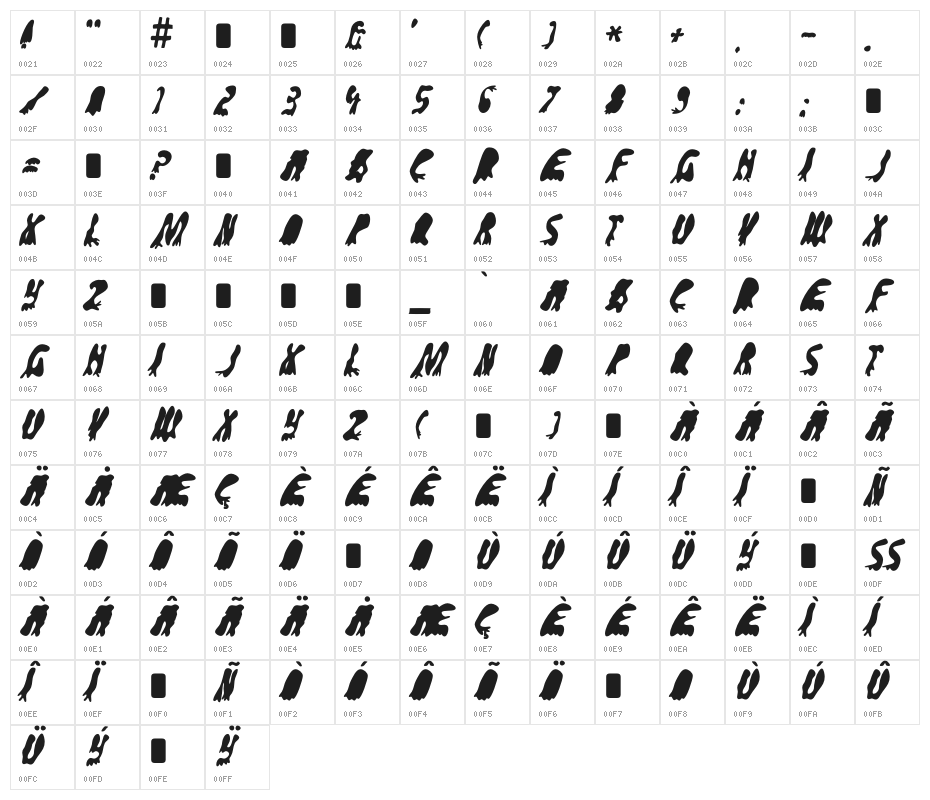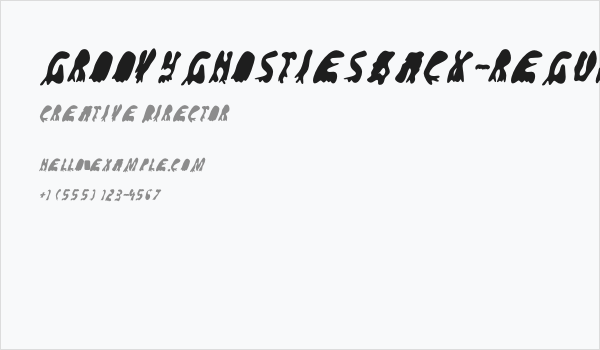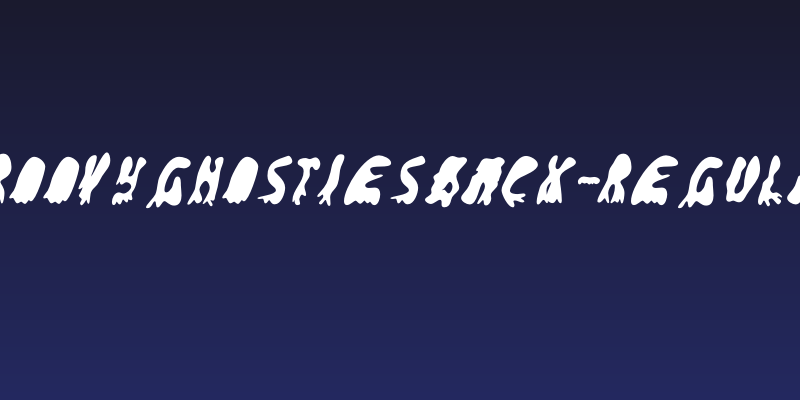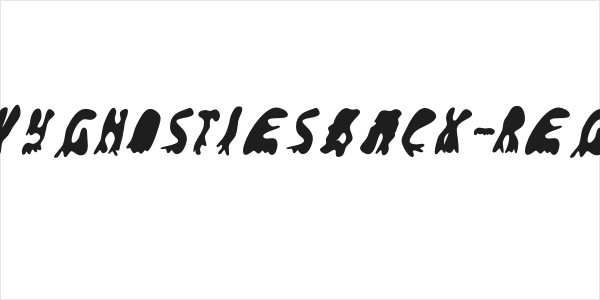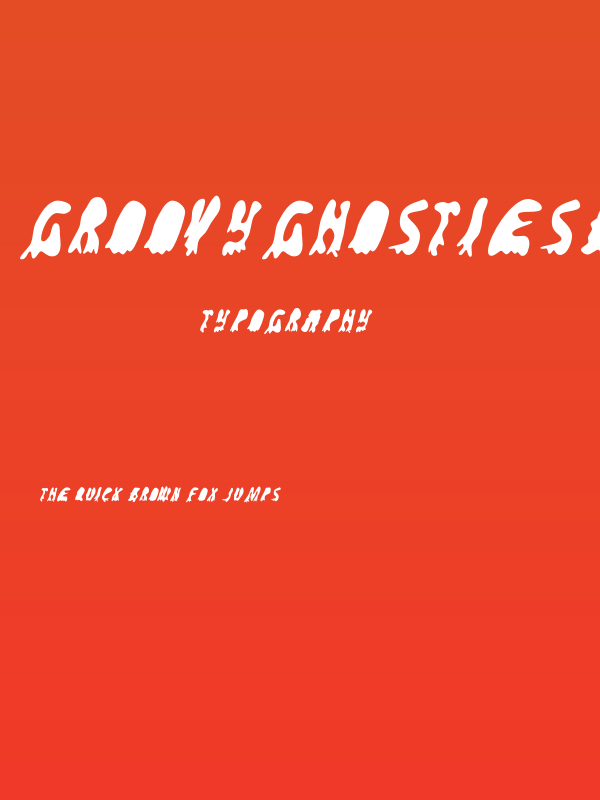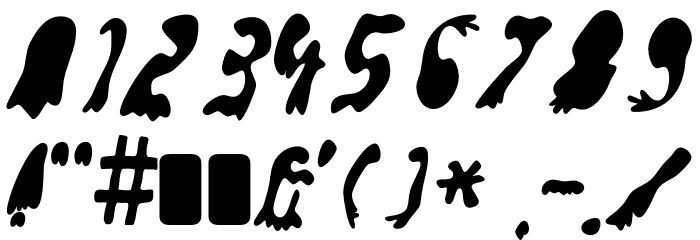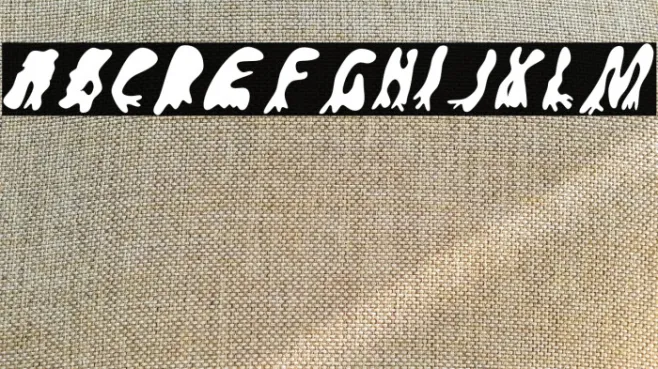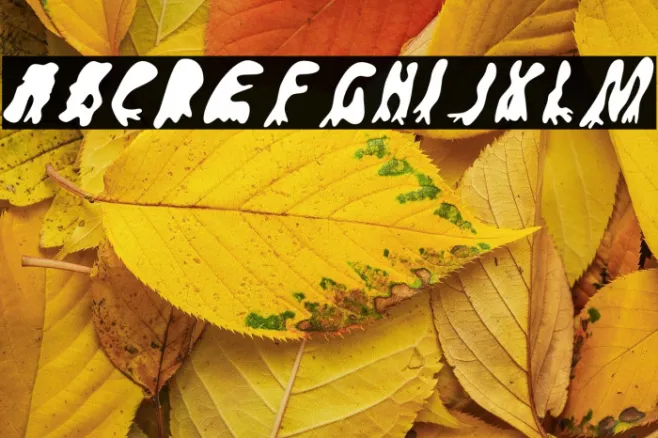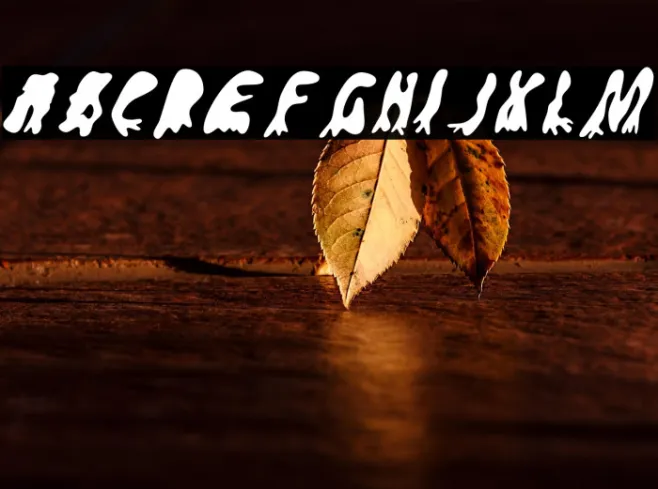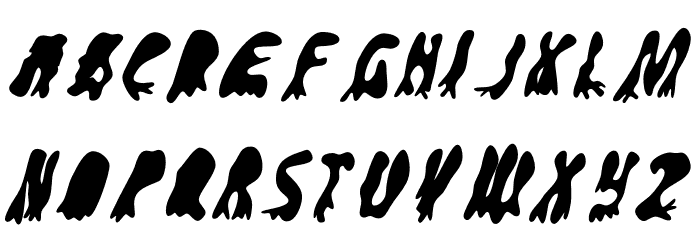
GroovyGhostiesBack-Regular Font
GroovyGhostiesBack-Regular Description
This font features a playful and spooky design, with each character resembling a ghostly figure. The letters have a bold, fluid appearance, with exaggerated curves and points that mimic the shape of ghostly apparitions. The style is highly decorative, making it ideal for Halloween-themed projects or any design requiring a touch of whimsy and eeriness. The characters are closely spaced, enhancing the dense, mysterious feel of the font. The numbers and special characters follow the same ghostly theme, ensuring consistency across all text elements.